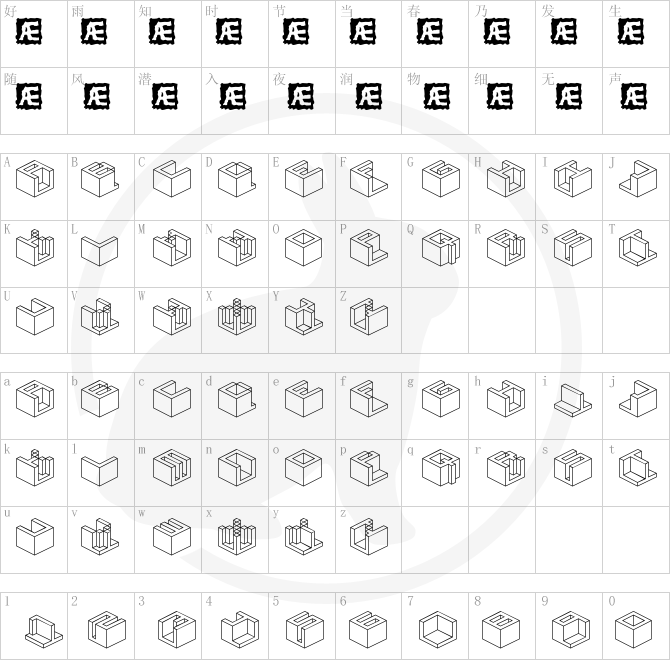
- Font Name:Qbicle 4 BRK
Qbicle-4-BRK.ttf is a very beautiful artistic font, Qbicle-4-BRK.ttf is widely used in the design and printing of various books and pictures,Qbicle-4-BRK.ttf has a strong visual impact,Qbicle-4-BRK.ttf is a commonly used font in newspapers, magazines and books, and is used in posters, e-commerce Poster design, store design, logo design, font design and other fields.Qbicle-4-BRK.